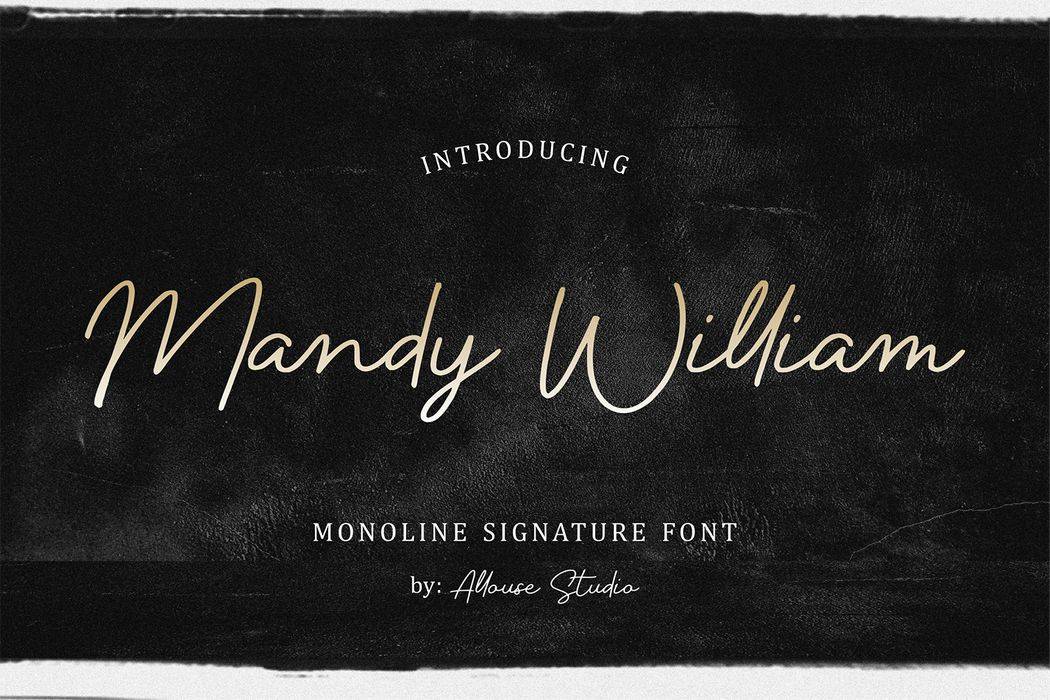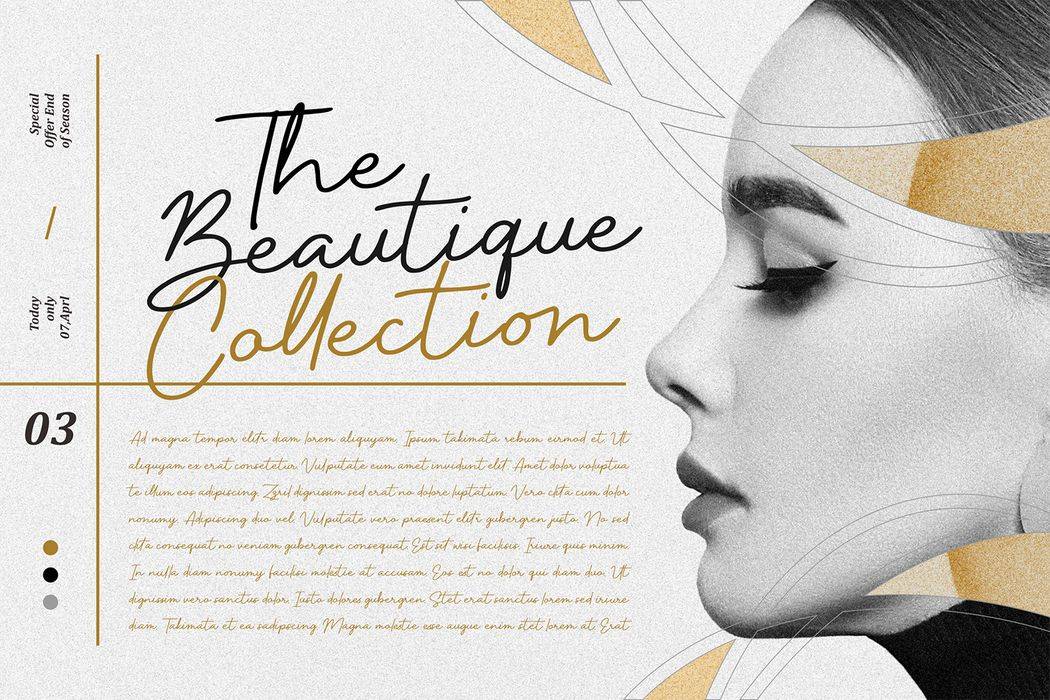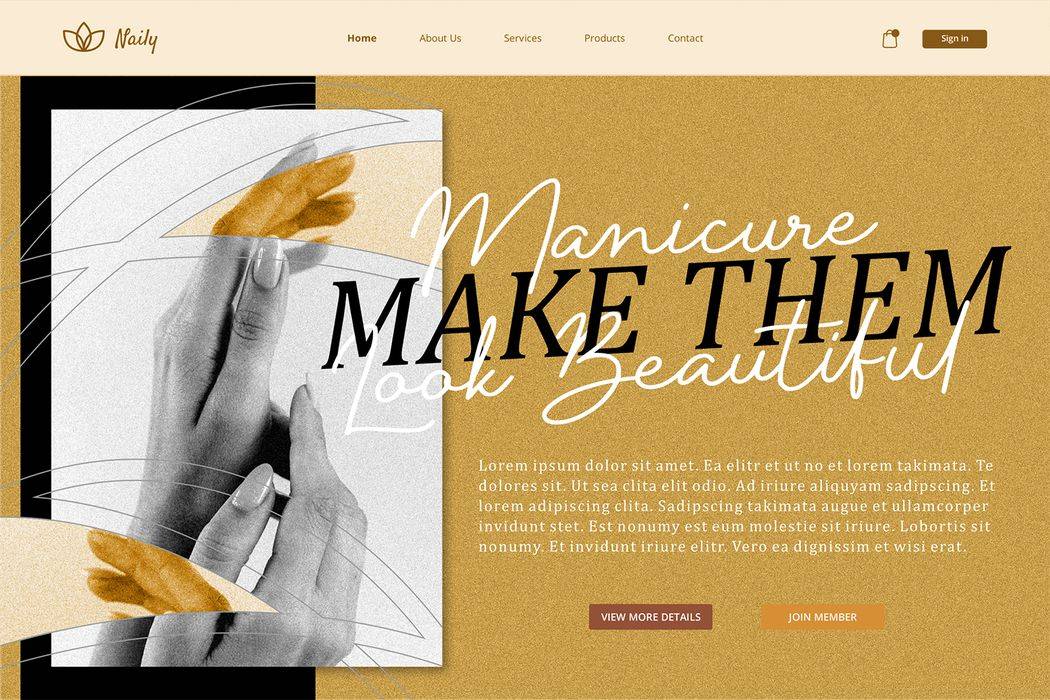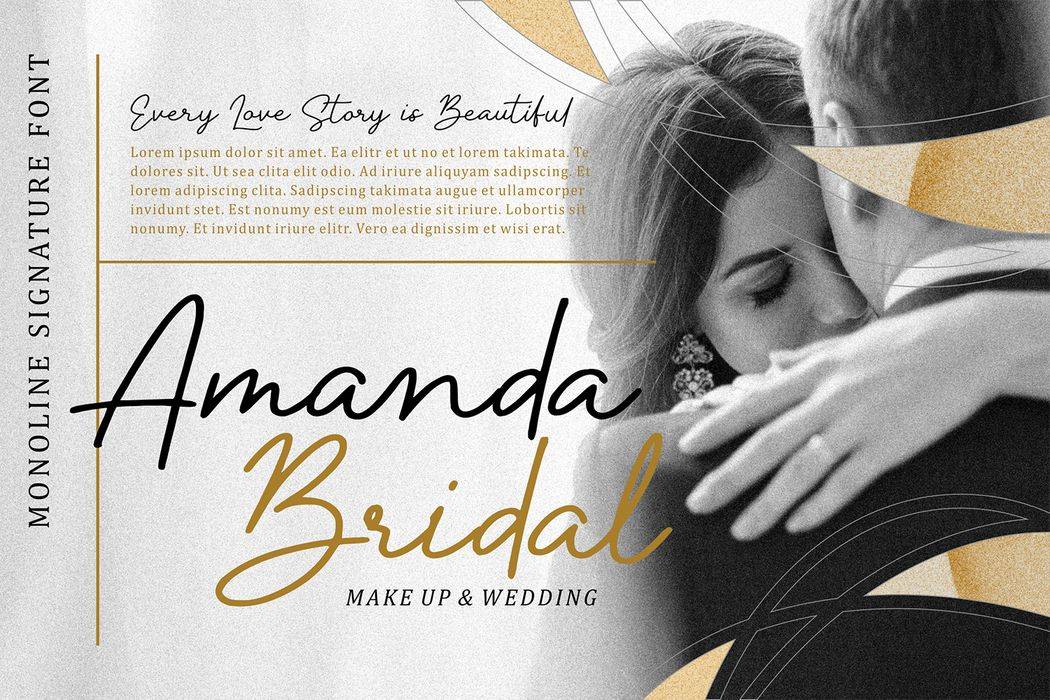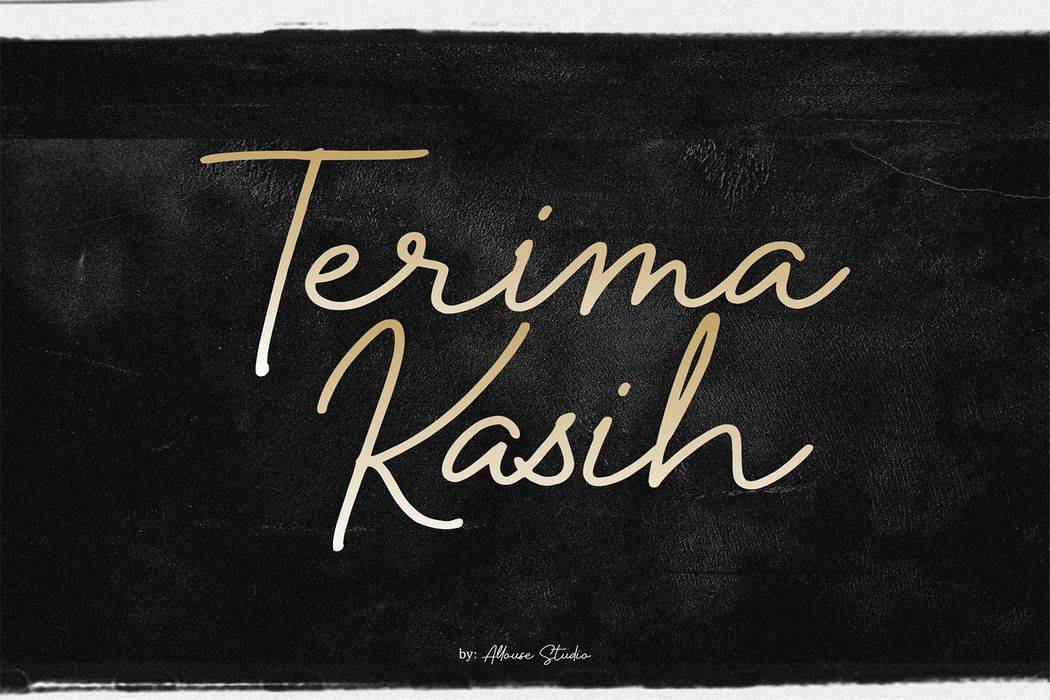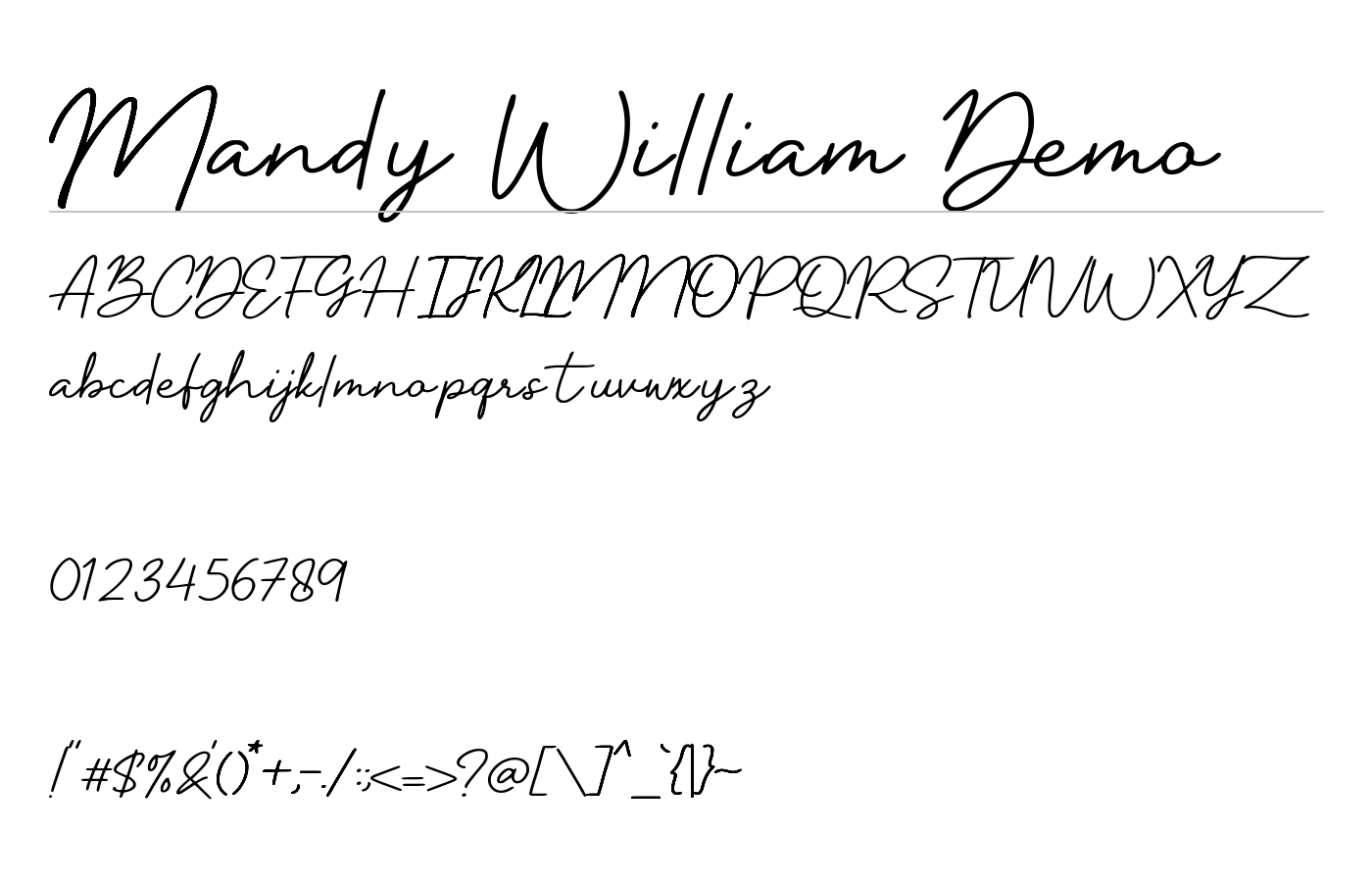
Mandy William is a delicate and elegant script font with a handwritten, natural flow that gives it a warm and personal touch. Its light weight and smooth, slightly slanted letterforms make it ideal for creative and romantic designs such as invitations, branding, and lifestyle projects where a soft, approachable feel is desired. This font shines in settings that need a friendly yet refined aesthetic, conveying charm and sophistication.
Mandy William Font
About Mandy William Font